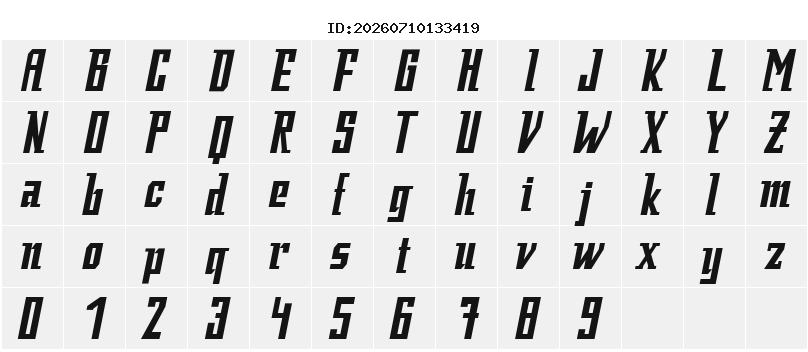
Fatman Preview
• Font Name: Fatman
• Font ID: AndreasRohrbck: Fatman Bold: 2013
• Full Font Name: Fatman Bold
• PostScript Name: Fatman-Bold
• Character Count: 89
• Designer: Andreas Rohrböck
• Manufacturer: Andreas Rohrböck
About Fatman.ttf
Fatman.ttf is a modern, elegant sans-serif font designed for ultimate readability and visual harmony. Perfect for branding, headlines, web design, and print materials.